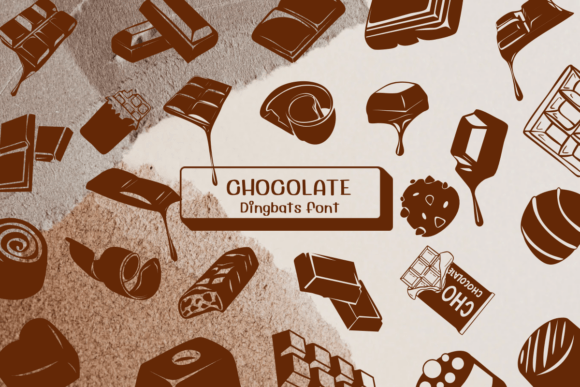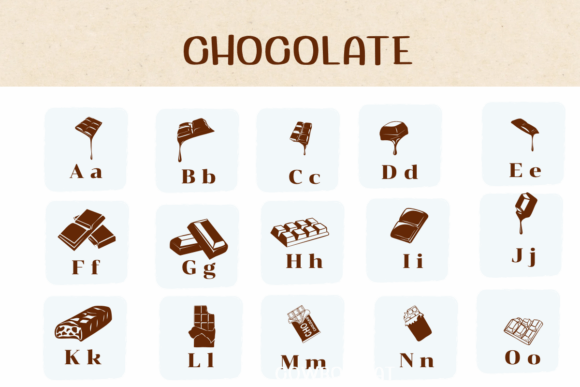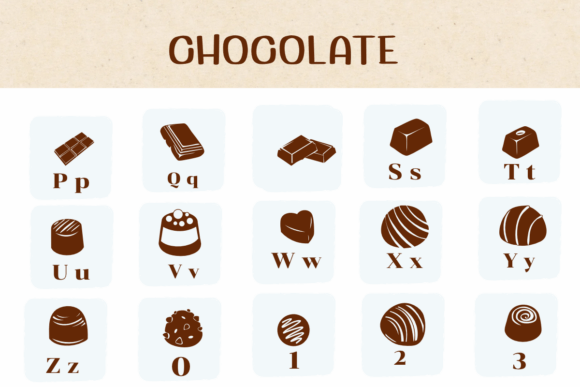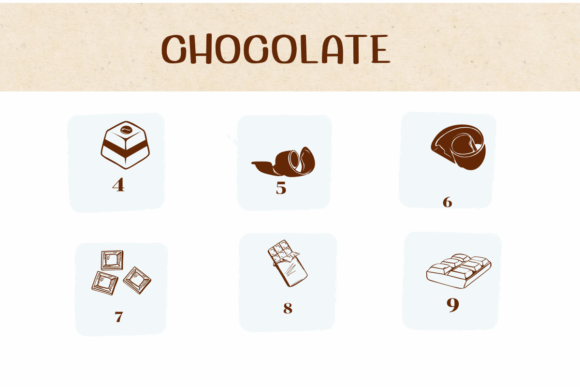
About the Chocolate Font
Elevate your designs with Chocolate Font, a font that combines sophistication with readability. Chocolate is a dingbats font with a sweet theme. This font can enhance your creative projects such as wedding invitations, DIY, crafts, decorations, logos, and many other creative ideas.